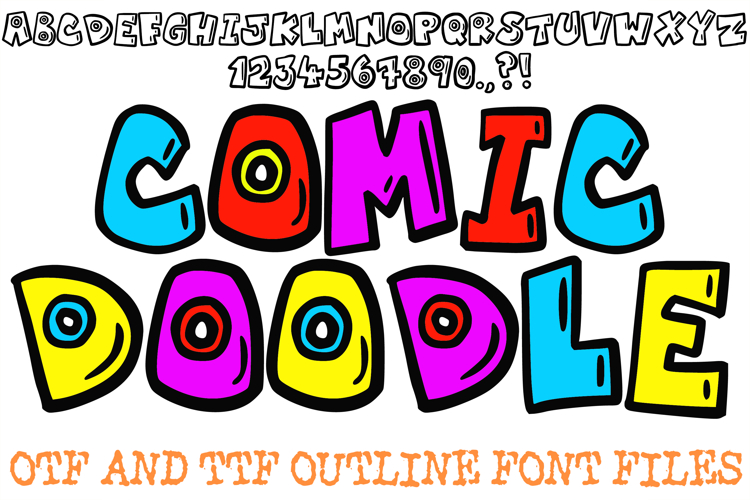
The Comic Doodle Font is a joyful, high-energy display typeface designed to bring the whimsical charm of Saturday morning cartoons straight to your layouts. Featuring chunkily proportioned, asymmetrical characters wrapped in thick, playful hand-drawn outlines, this font is a premier choice for designers working on children's product packaging, vibrant sticker sheets, graphic novel titles, and casual school-event flyers.
The design celebrates a lighthearted, hand-crafted spirit where each letter feels completely customized and alive. Select characters feature charming "target-style" dot details within their counters—like the 'O' and 'D'—adding a signature doodle flair that keeps the text feeling animated and friendly. Whether you are building an identity for a toy brand or designing eye-catching social media graphics, this font provides a bold, high-contrast look that is instantly engaging and highly legible.
Chunky Hand-Drawn Outlines: Heavy, playful perimeters give the letters massive visual presence, making titles effortlessly stand out against busy or colorful backgrounds.
Quirky Geometric Accents: Whimsical internal target marks and asymmetric curves inject a unique doodle personality directly into the alphabet.
Animated Comic Personality: Perfectly tailored for projects that need an energetic, lighthearted vibe—from animated video overlays to youth lifestyle apparel.
Excellent Legibility: Despite its fun, exaggerated proportions, the clean open forms ensure your text remains clear and readable across print and digital media.